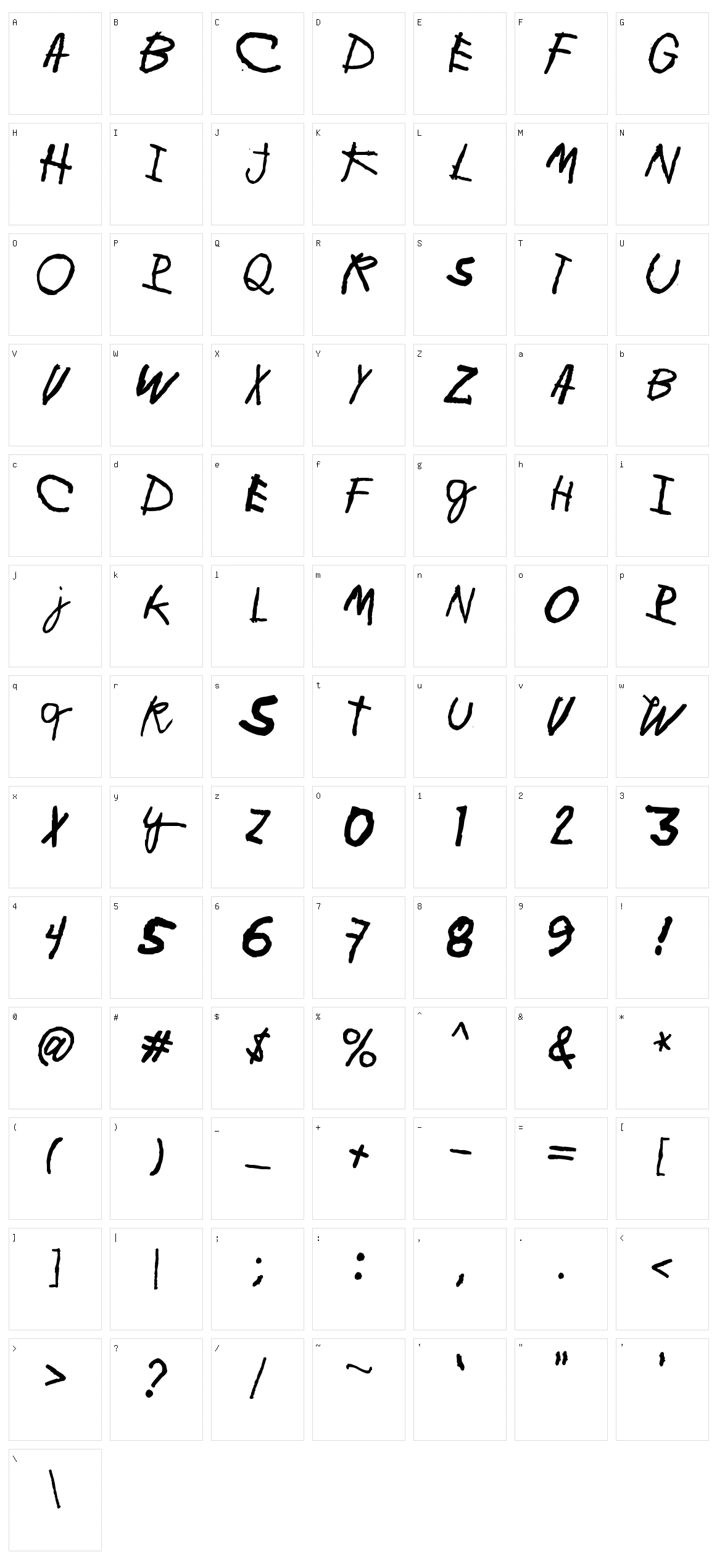
The free font Minen oo kenguru is carefully designed by junkohanhero, showcasing a thoughtful balance of creativity and usability and falls under the Trash font style. When you download the ZIP file, it contains only 26.08 KB of font files, making it lightweight and quick to download. Please review the license details below to understand permitted usage and distribution rights. If license information is not available, we recommend using this font for personal projects only or contacting the author directly for commercial usage permissions.